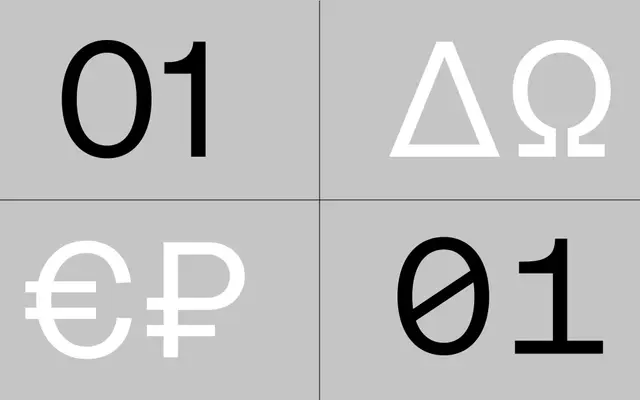
Oceanic Grotesk
A mid-20th-century modernist grotesque designed as a sans companion to the Oceanic serif families, sharing identical vertical metrics for mixed-setting use.
Built to sit alongside Oceanic and Oceanic Text, this grotesque takes a neutral, modernist stance rather than echoing the high-contrast fat face character of its serif counterparts. Six weights run from Light to Poster with matching italics across 12 styles, and a variable font is included in the full family purchase. Extended Latin and Cyrillic coverage makes it broadly serviceable for European and Eastern European work.
The foundry describes it as drawing on mid-20th-century modernist typography with neutrality and simplicity as core values, placing it squarely in the grotesque tradition.